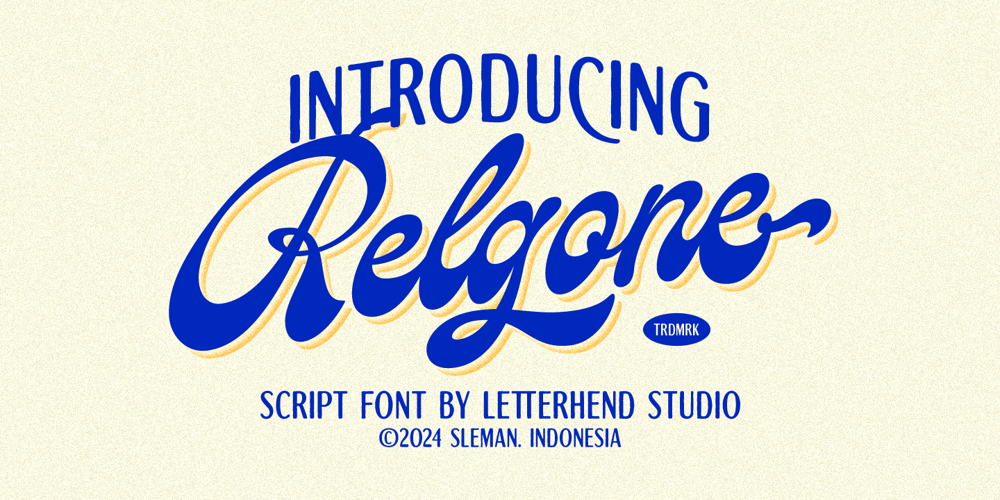
Relgone
Relgone font
Relgone Font Family was designed by Hendry Juanda and published by Letterhend. Relgone contains 1 styles and family package options. Relgone is a unique retro script. You can play around with alternates character. This font perfectly made to be applied especially in logo, and the other various formal forms such as invitations, labels, logos, magazines, books, greeting / wedding cards, packaging, fashion, make up, stationery, novels, labels or any type of advertising purpose.Features : Uppercase & lowercase Numbers and punctuation Alternates Character Multilingual support PUA encoded